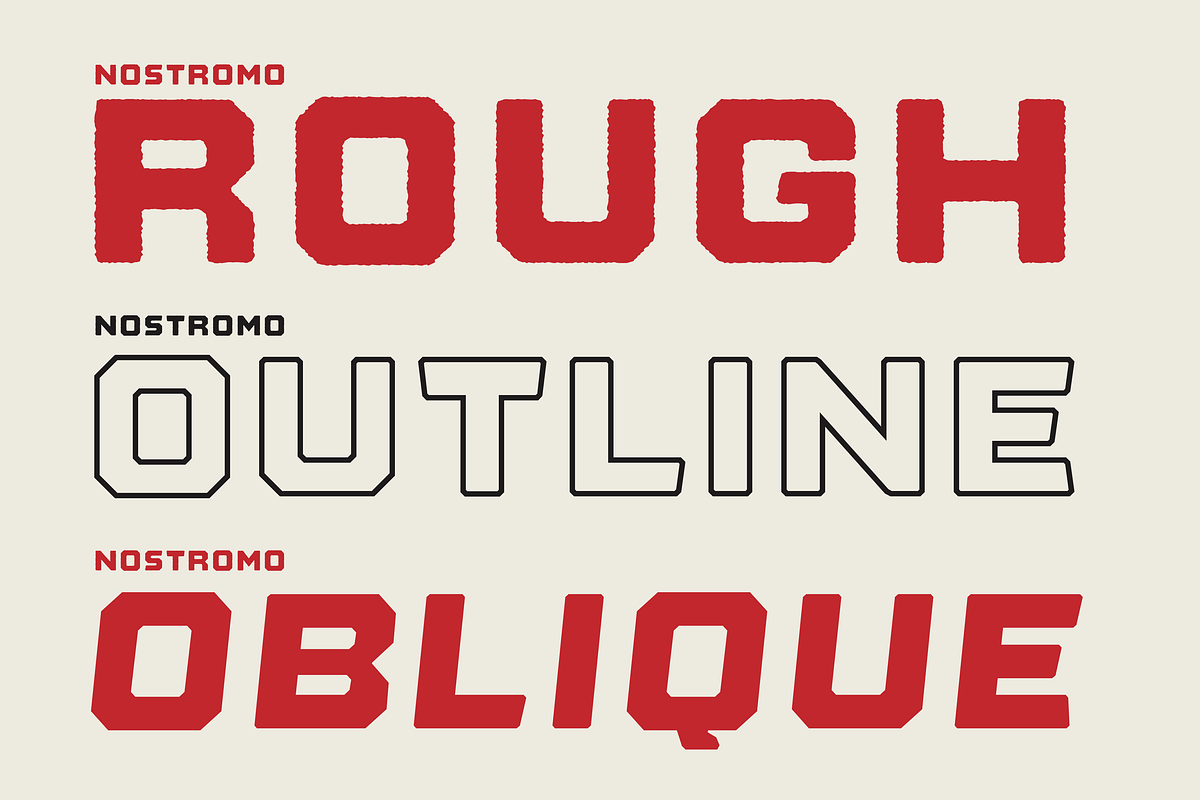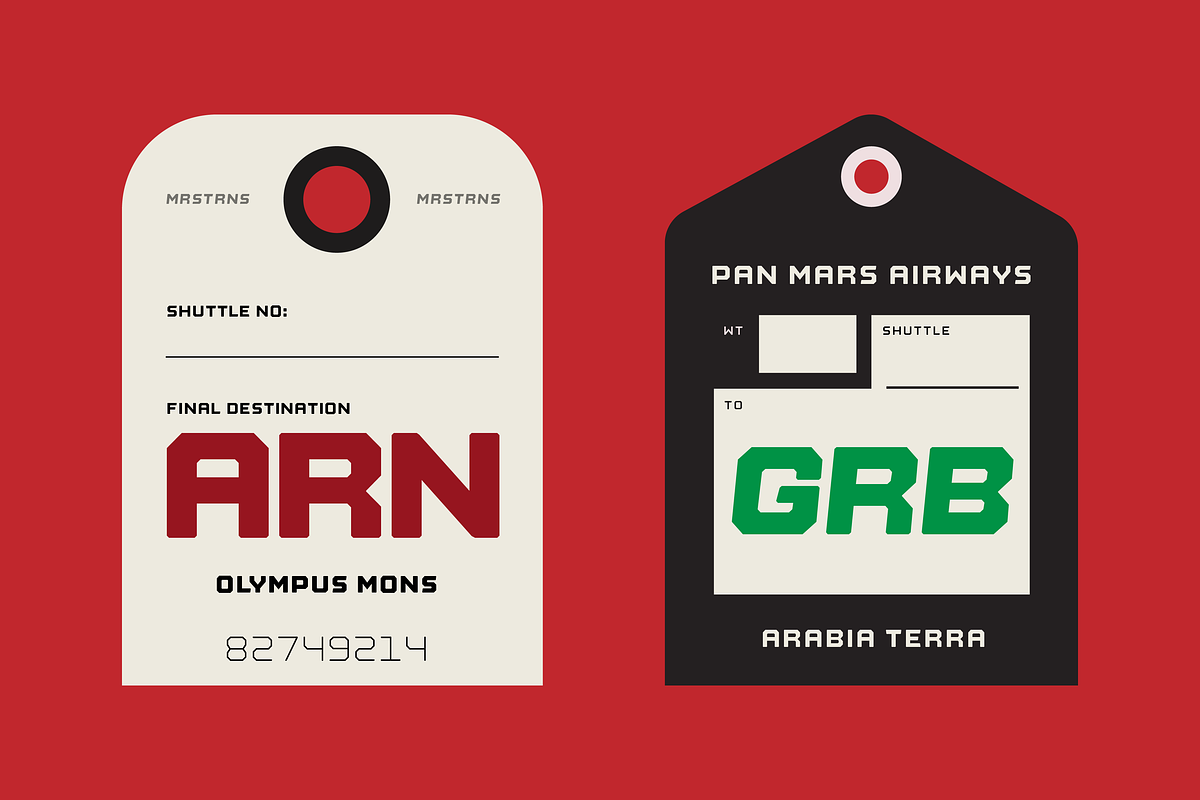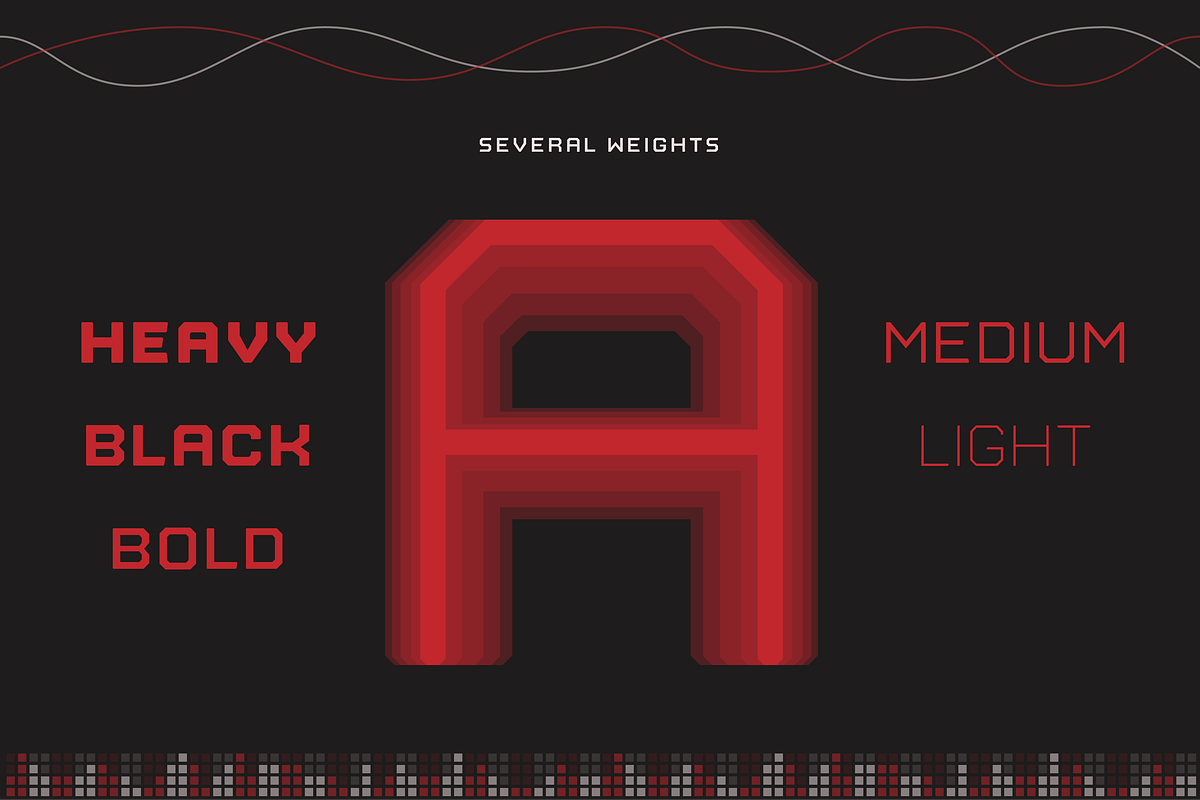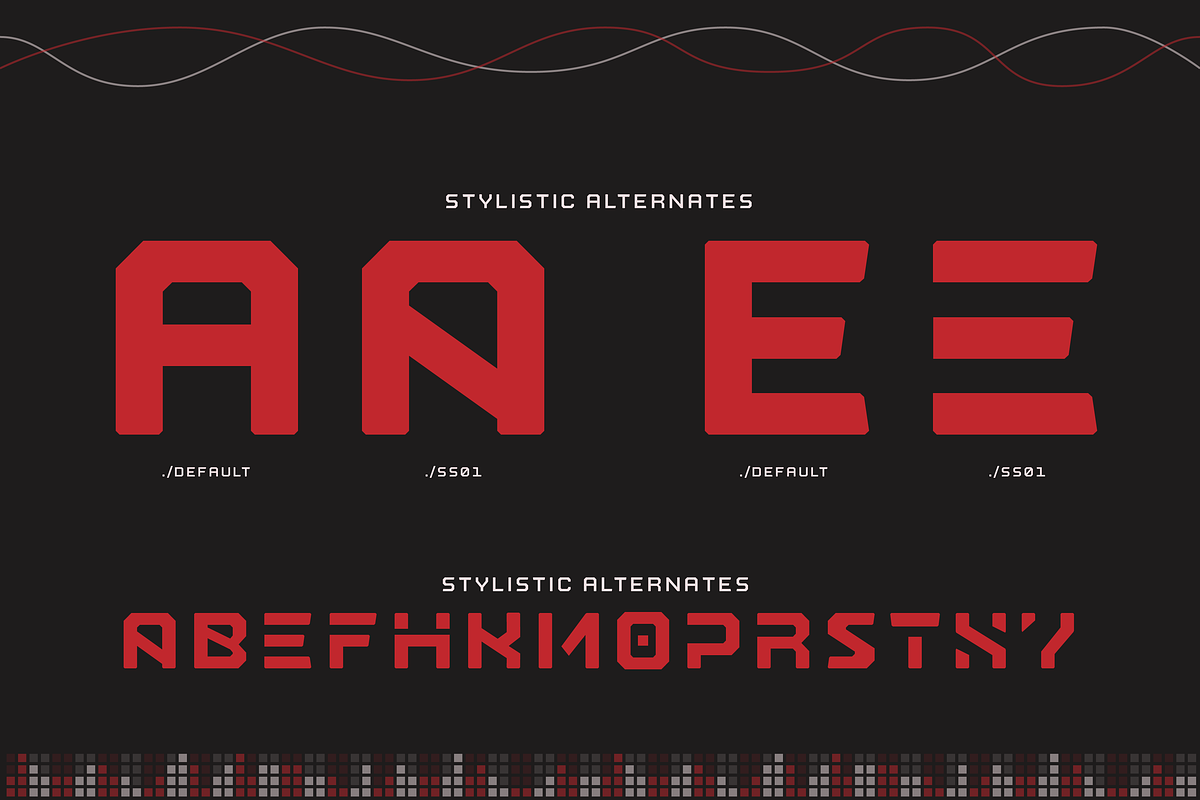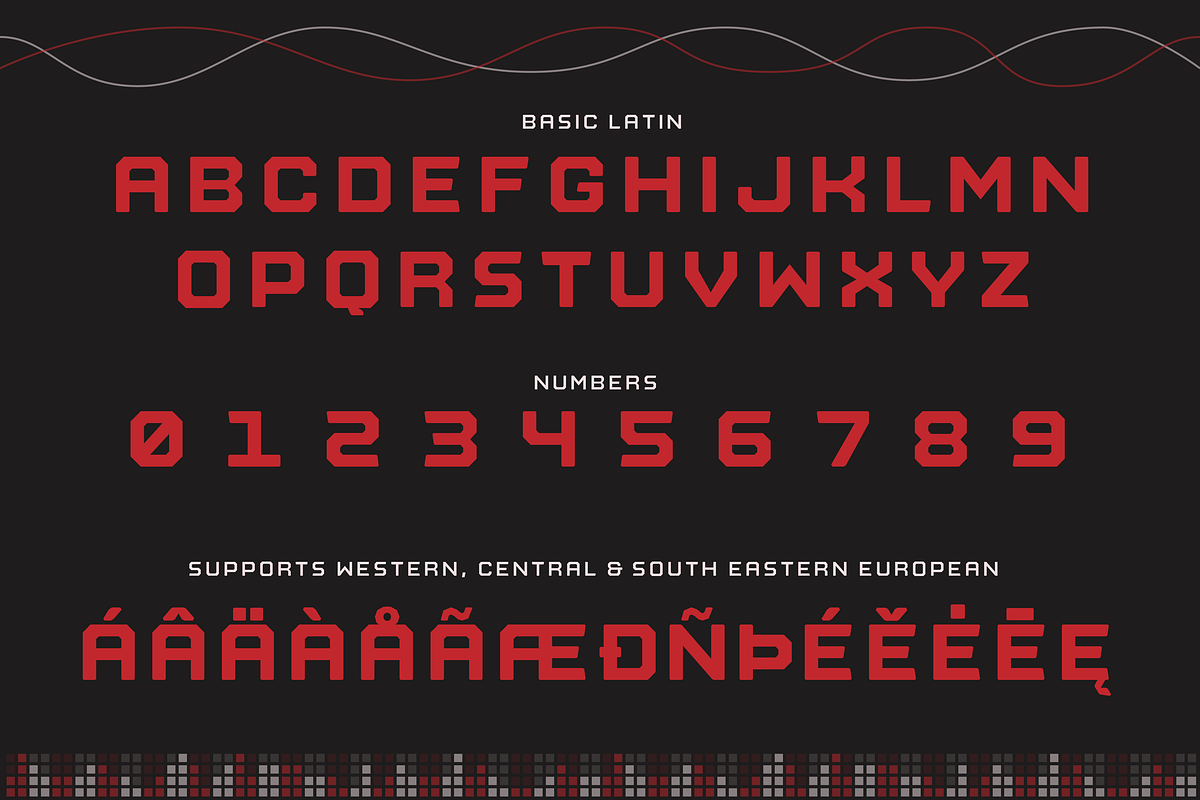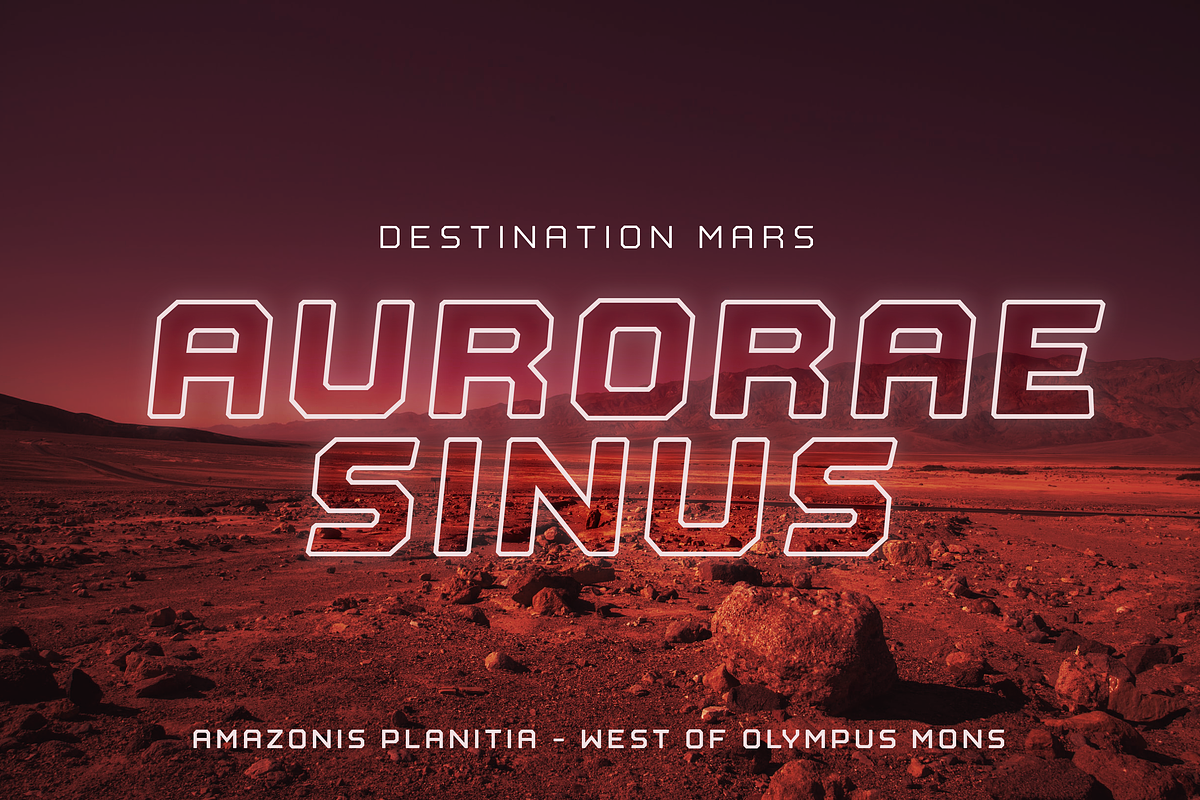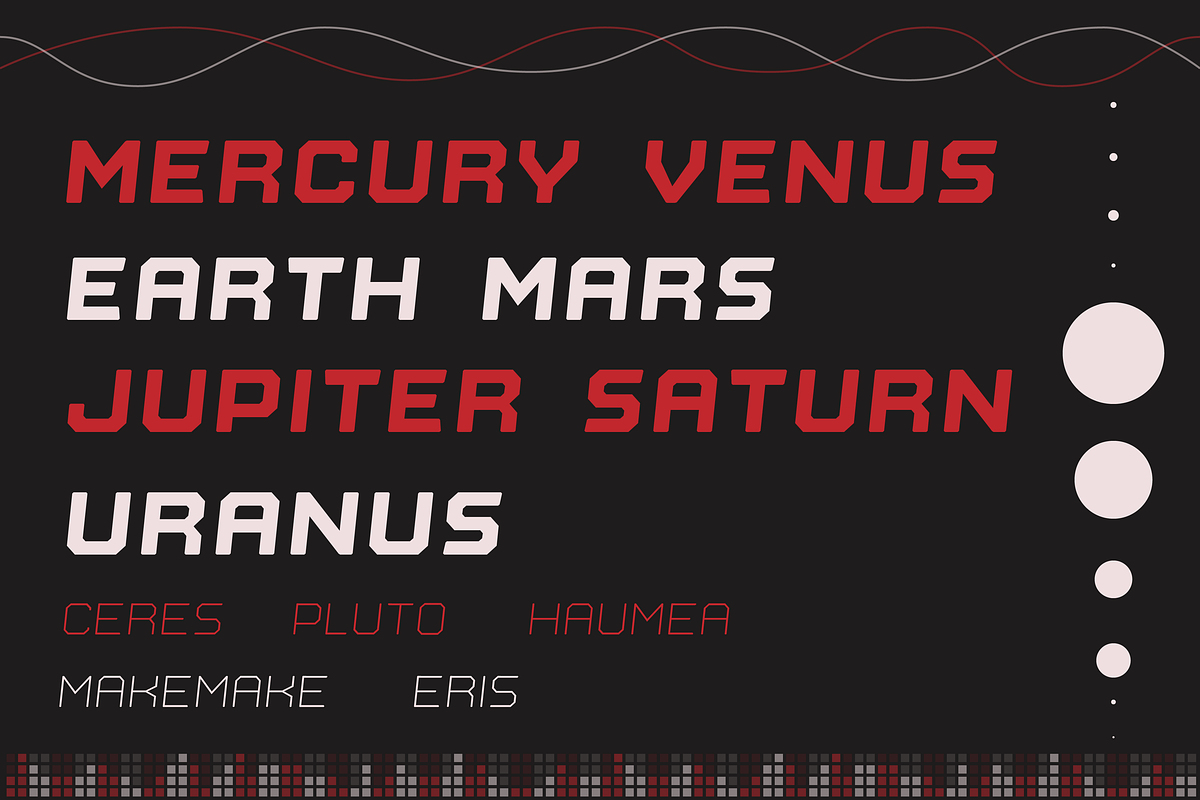
Nostromo - Retro futuristic font
Nostromo is a futuristic/science fiction typeface in several weights and styles. Nostromo also comes with stylistic alternatives on several letters.
- Nostromo Regular
- Nostromo Oblique
- Nostromo Rough
- Nostromo Outline
Nostromo includes multilingual support (basic latin, Western European, Central European, south eastern european), numbers and punctuation.